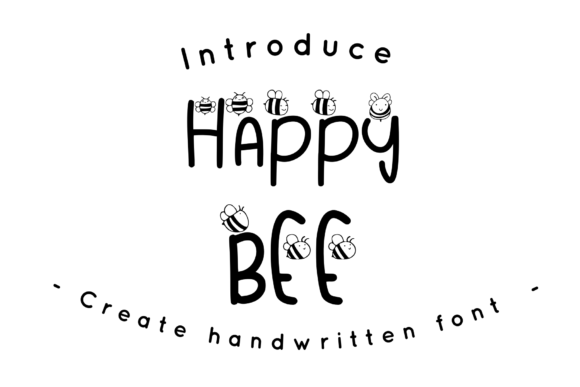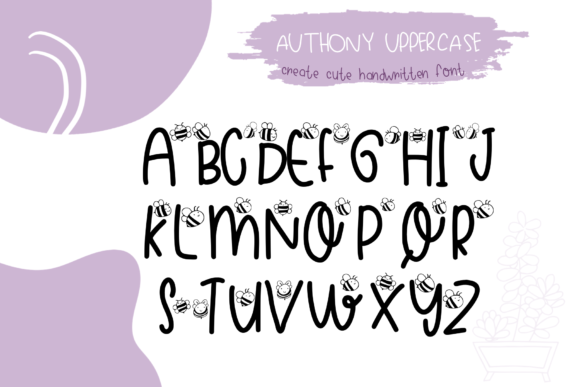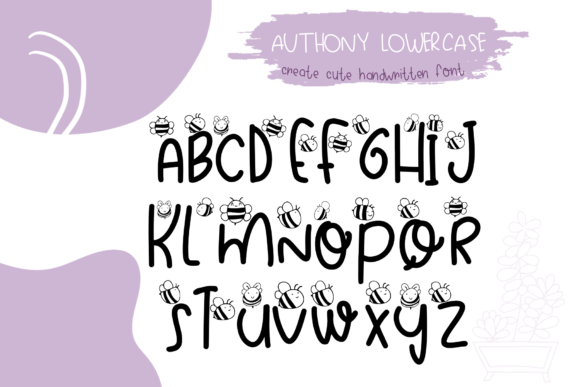
Get Ready to Buzz with Creativity
Have you ever found yourself lost in a world of blank pages and endless possibilities, only to be sparked by a single font? For many designers, this moment of inspiration is a treasure to behold. It’s the moment when the perfect font comes along and brings a project to life.
Enter the Happy Bee Font, a charming handwritten font that’s sure to put a smile on your face. With its sweet and quirky style, this font is perfect for creating designs that are both unique and lovely. Whether you’re working on a children’s book, a wedding invitation, or a social media campaign, the Happy Bee Font is sure to add a touch of whimsy and personality to your work.
As a designer, you know that the right font can make all the difference in bringing your vision to life. The Happy Bee Font is a valuable addition to any design arsenal, offering a fresh and playful twist on traditional typography. With its bee ornaments and handwritten charm, this font is sure to inspire creativity and bring a smile to your clients’ faces.
Happy Bee Font Key Features
- Character Count: The font features a vast character set, including uppercase and lowercase letters, numerals, punctuation marks, and special characters, making it ideal for diverse design applications.
- Unique Characteristics: The Happy Bee Font boasts a playful, whimsical design with rounded edges and a touch of modernity, perfect for creating eye-catching and engaging visual content.
Happy Bee Font Review
Overall, I found the Happy Bee Font to be a delightful and cheerful addition to any design project. The font’s unique style and playful feel make it perfect for creating engaging and child-friendly content.
- ✨ The font’s rounded edges and bubbly shapes create a sense of friendliness and approachability.
- ✨ The varying weights and styles offer a range of options for creating visual interest and hierarchy.
- ✨ The font is highly legible, making it suitable for a wide range of applications, from signage to digital displays.
- ⚠️ The font may not be suitable for more formal or professional projects, as it can come across as overly playful or juvenile.
- ⚠️ Some users may find the font’s rounded edges and bubbly shapes to be overly simplistic or cutesy.
- ⚠️ The font may not be as versatile as some other font families, and may not work as well in certain contexts or applications.
Overall, I would recommend the Happy Bee Font to designers working on projects that require a playful and approachable aesthetic. However, it’s essential to consider the project’s goals and target audience before choosing this font.
Happy Bee Font: A Practical Application Guide
Happy Bee Font is perfect for creating playful and whimsical designs. Use it for:
– Children’s book covers
– Party invitations
– Educational materials
– Any project that needs a touch of fun and personality.